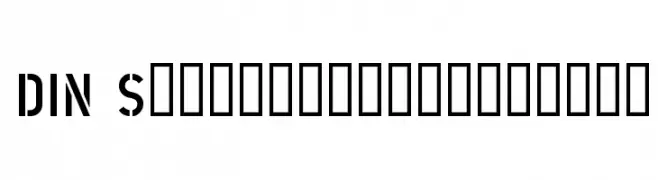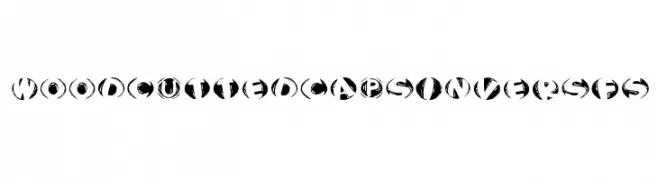
A bold, distressed font with a rugged, vintage appearance.
A bold, woodcut-style font with circular enclosures and artistic flair.
An ornate, vine-like decorative font with intricate, swirling designs.
A distressed, vintage typewriter-style font with a rugged and nostalgic appearance.
A bold, geometric stencil font with industrial appeal.
A bold, stencil-style font with rugged, industrial characteristics.